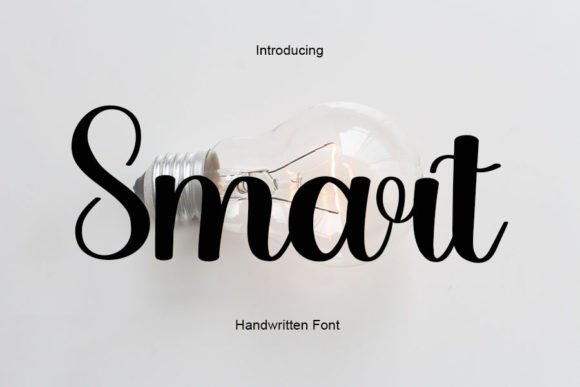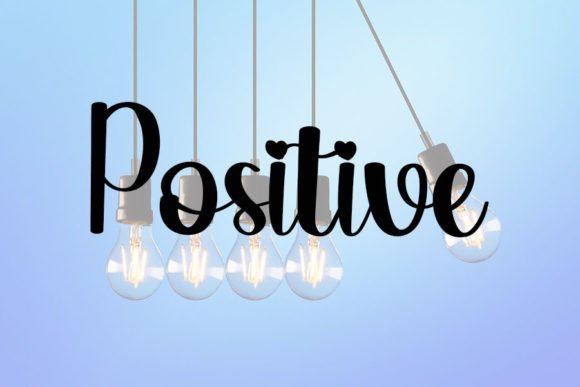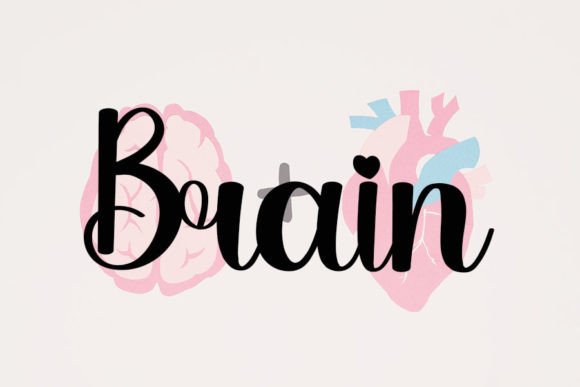
A Neat and Elegant Handwritten Script
Smart is a refined handwritten font crafted to bring a timeless and sophisticated feel to your projects. Each letter has clean lines and smooth curves that create a graceful, professional look. The font’s distinctive style makes it perfect for designs that need to feel both modern and classic.
Whether you’re designing personal stationery or professional branding, Smart helps your text stand out with confidence and elegance.
Smart is a versatile font that adapts beautifully to a wide range of uses. It’s perfect for wedding invitations, save-the-date cards, and event signage. The elegant script makes every detail feel romantic and thoughtful.
Use Smart for logos and business cards where you want your brand to feel polished and approachable. The handwritten touch adds personality and warmth to any visual identity.
This font is also great for product packaging, boutique labels, and handmade goods. The neat shapes help your products look professional while still feeling unique.
Smart works perfectly for social media graphics, blog headers, and Pinterest pins. No matter the platform, this font brings a clean, sophisticated touch that enhances your message.
The font includes uppercase and lowercase letters, numbers, and punctuation marks. Ligatures are included so your text flows naturally and looks cohesive.
Clear, Distinct, and Easy to Read
Even though Smart has a decorative handwritten style, it remains clear and easy to read at any size. Balanced spacing between letters keeps your text tidy and professional, whether you use it for headlines or small captions.
Many designers like pairing Smart with a minimalist sans-serif font to create contrast. Use Smart for titles and the sans-serif for supporting text. This combination guides the reader’s eye and keeps layouts clean and modern.
To highlight Smart’s elegant character, use soft backgrounds and neutral color palettes. Shades like ivory, blush, and warm gray let the smooth strokes stand out without distraction.
When designing wedding materials or romantic branding, consider adding delicate watercolor elements or floral illustrations to enhance the refined feel. For packaging and social media posts, keep layouts simple so the font stays the main focus.
Think about the mood you want to create. Smart is perfect for projects that should feel timeless, stylish, and personal.
Smart is more than just a handwritten font. It’s a design tool that transforms everyday text into something special and memorable. Its clean curves and elegant details bring sophistication to any project.
Adding Smart to your font collection gives you a reliable option for all kinds of creative work. From weddings and branding to packaging and social media, this font adapts effortlessly to your ideas.